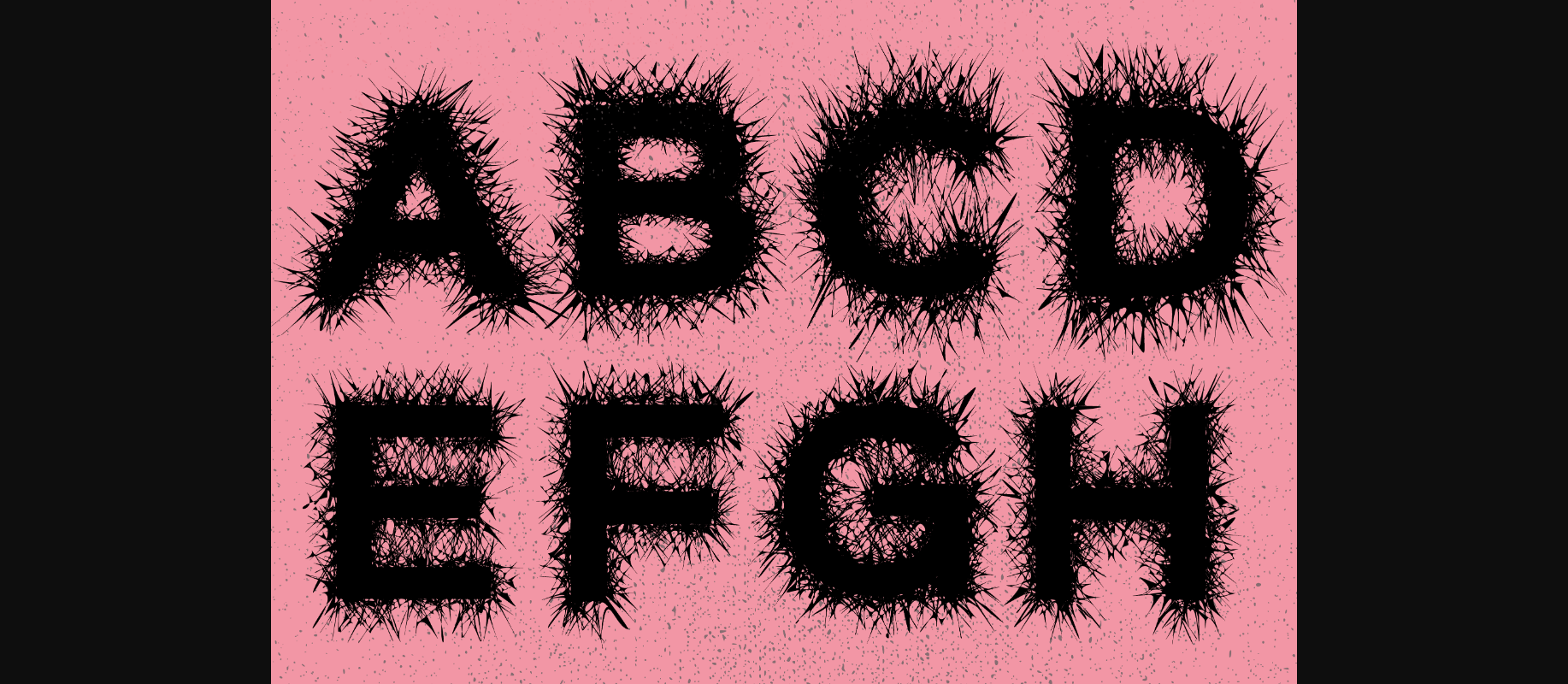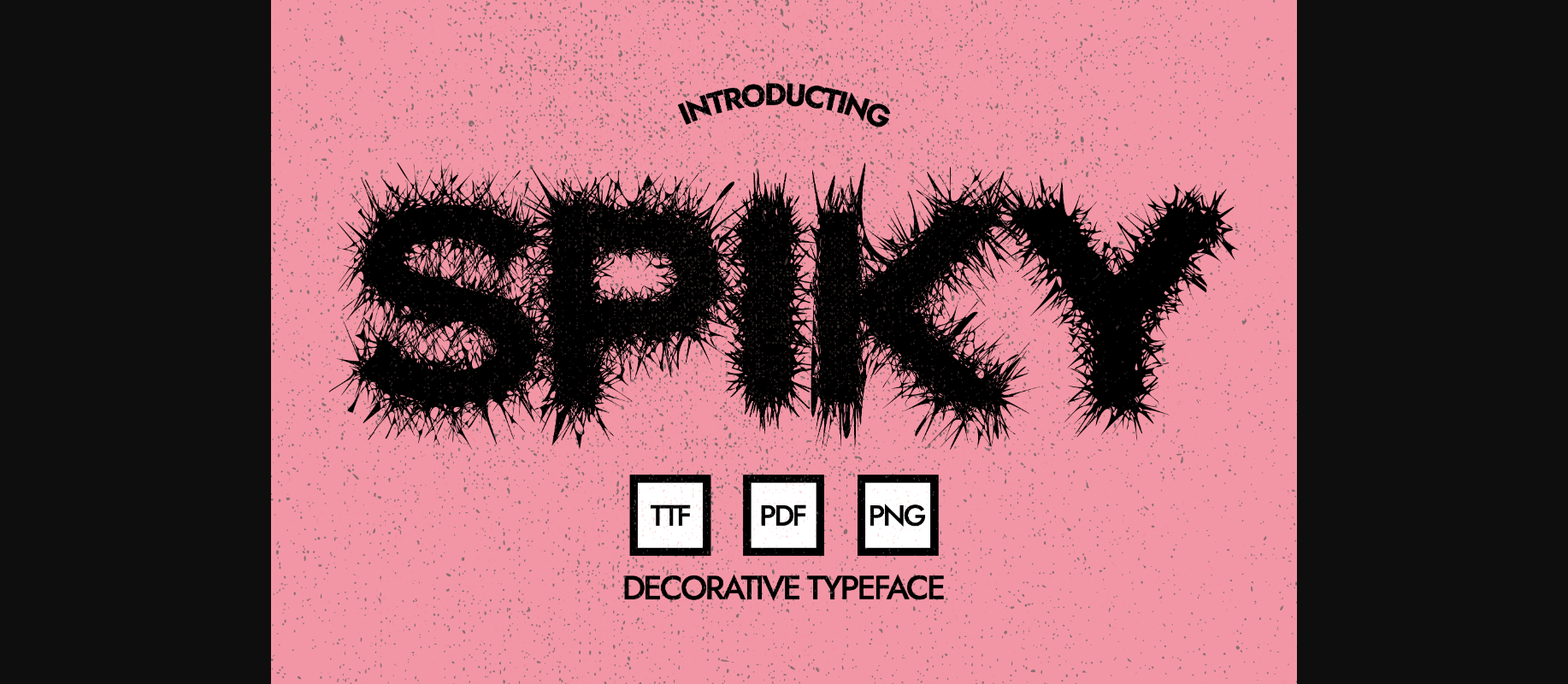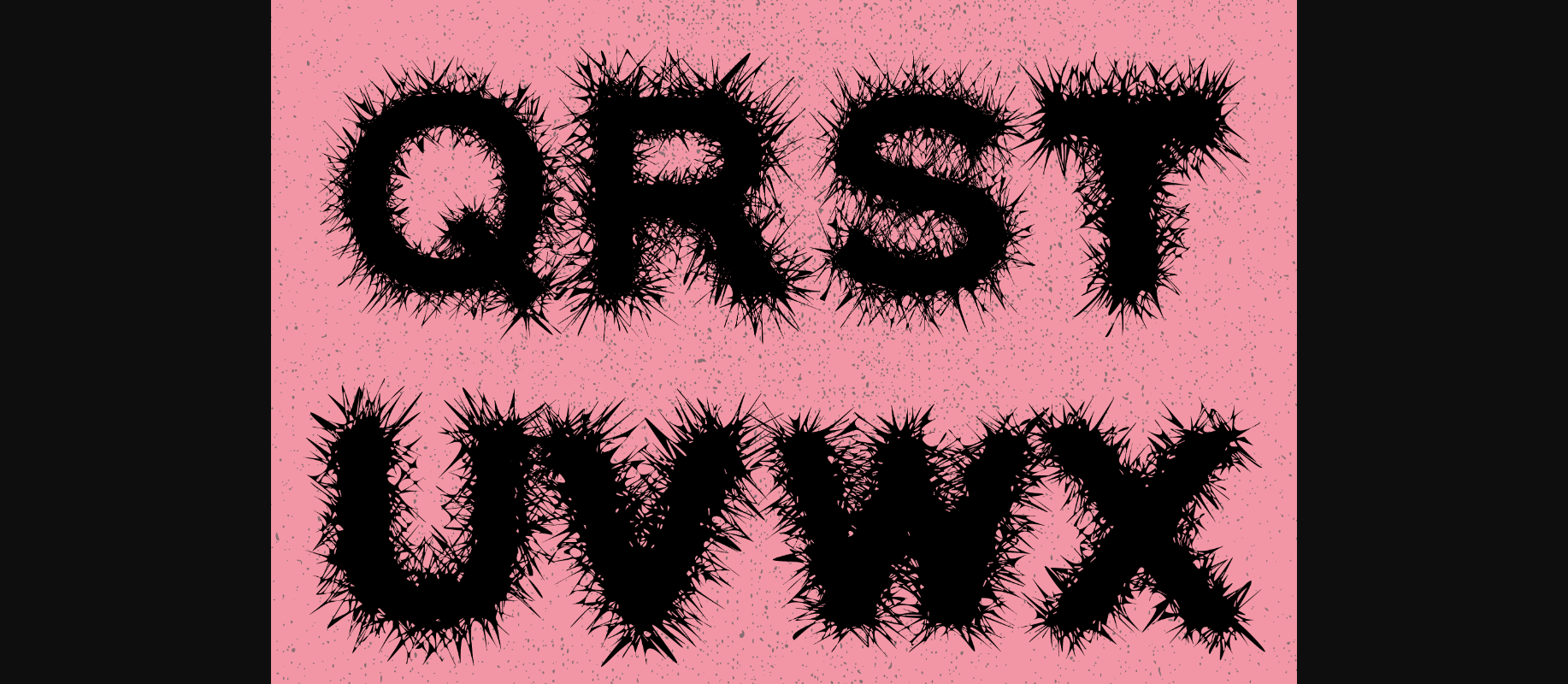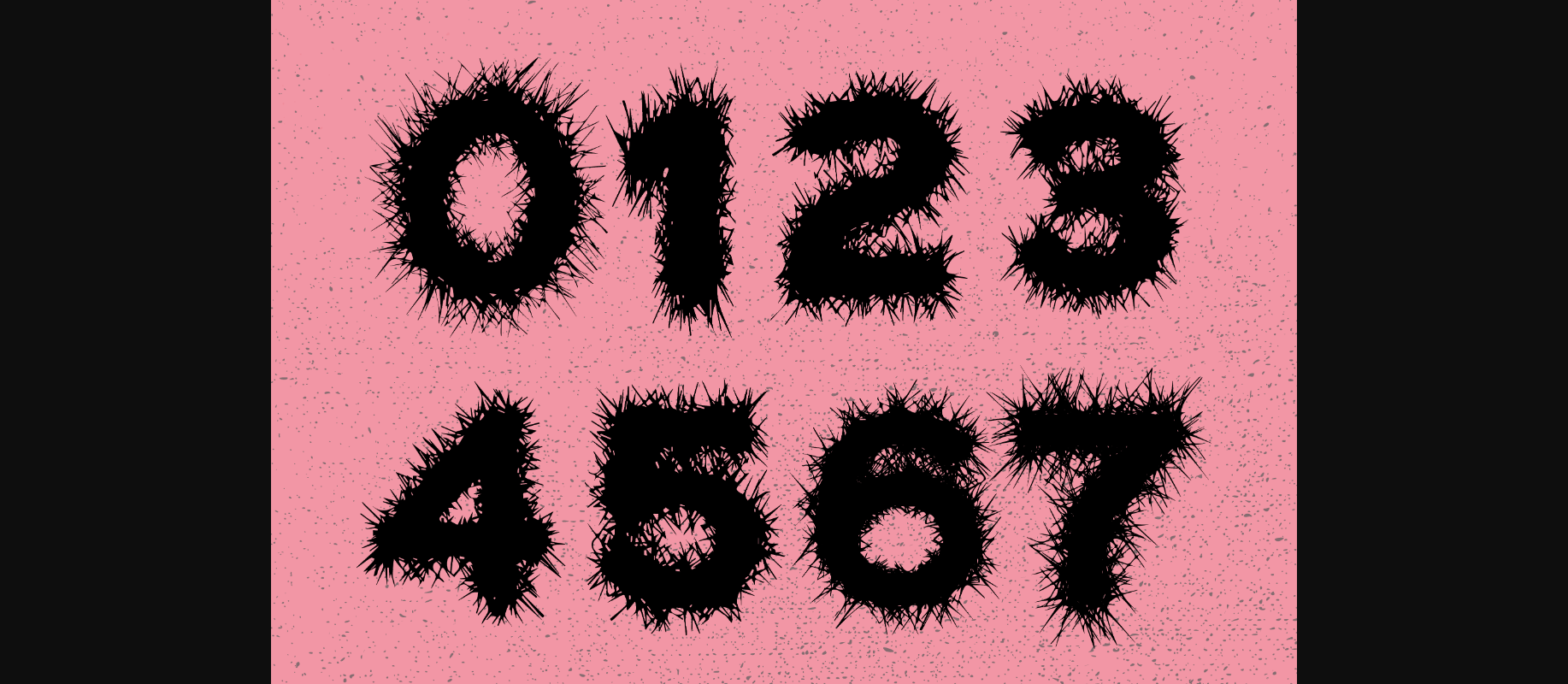
About Spiky Font
Spiky is an incredibly unique and cool looking decorative font. It looks neat, fun and interesting and it will most certainly work great as logos, branding, cartoon titles and more creative ideas.